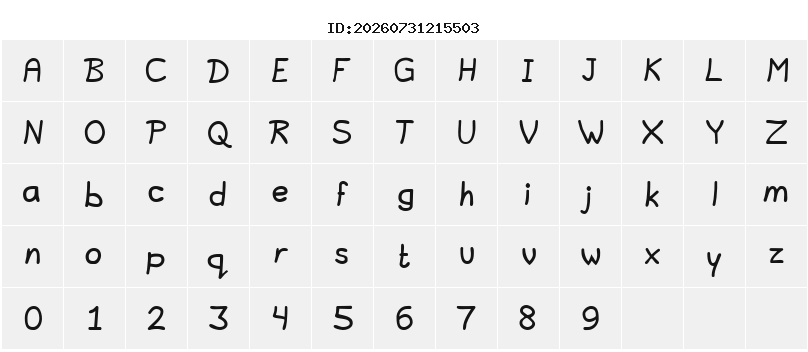
Lavi Preview
• Font Name: Lavi
• Designer: Ruben Holthuijsen
About Lavi.ttf
Lavi.ttf is a modern, elegant sans-serif font designed for ultimate readability and visual harmony. Perfect for branding, headlines, web design, and print materials.